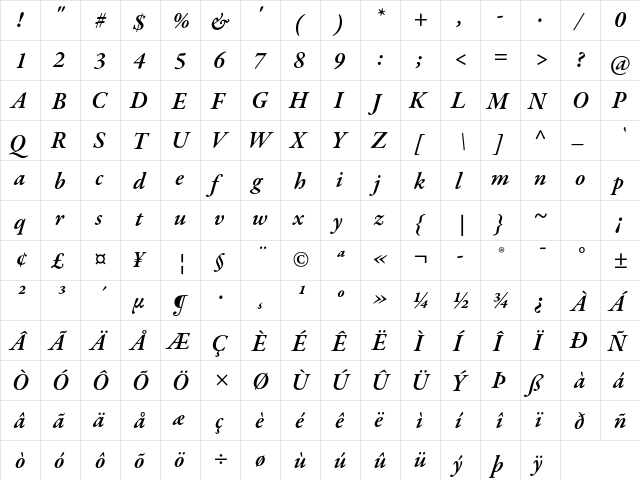
Garamond Premier Pro Semibold Italic
| Designer | Robert Slimbach |
Design Context for Garamond Premier Pro Typeface
Garamond Premier Pro offers clean, dependable letterforms without strong stylistic allegiance, making it a practical choice for designers who need flexibility. Its italic angle brings a sense of urgency and motion to the letterforms. Its bold stroke weight gives it real presence on the page.
Pro Tip: Use Garamond Premier Pro for emphasis, pull quotes, and subheadings where its slanted energy can add rhythm to the layout.